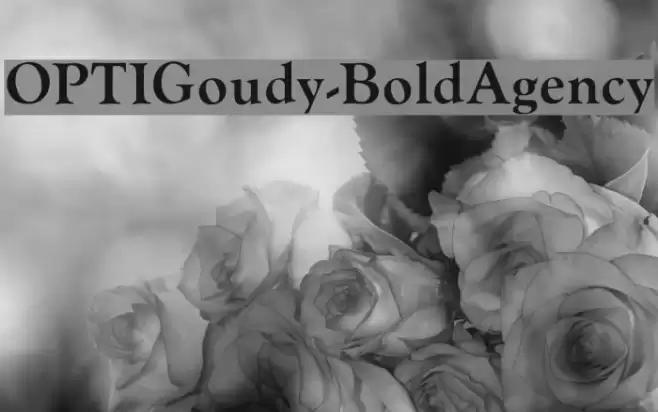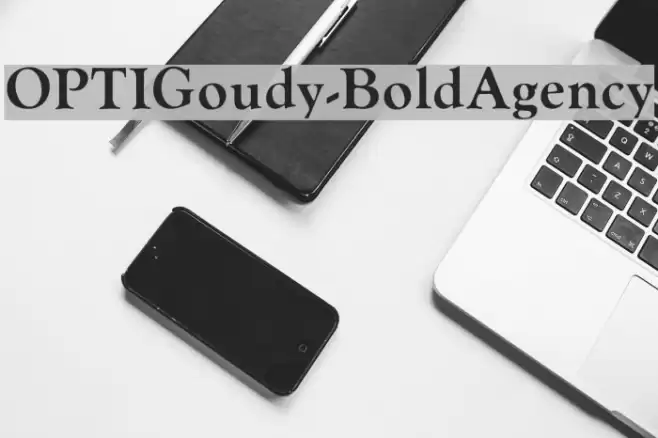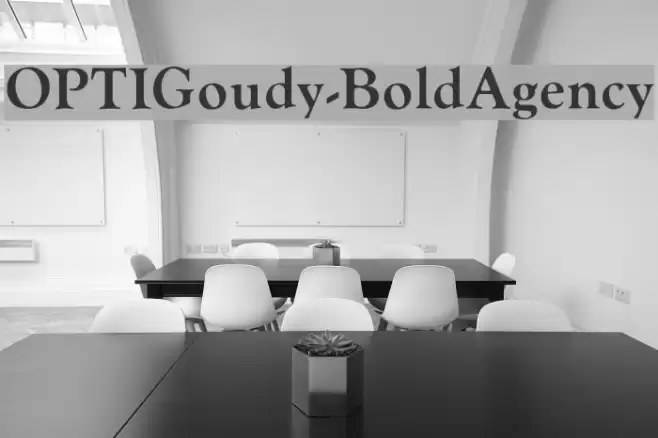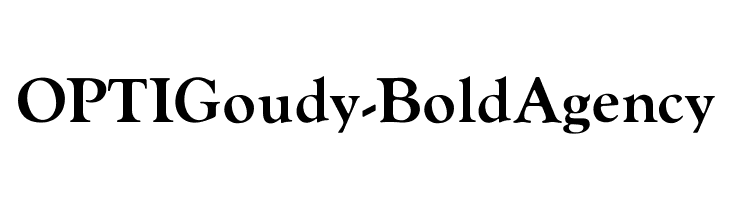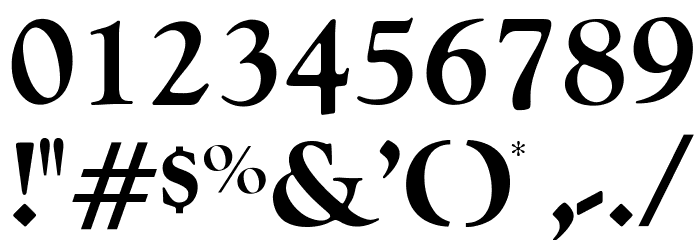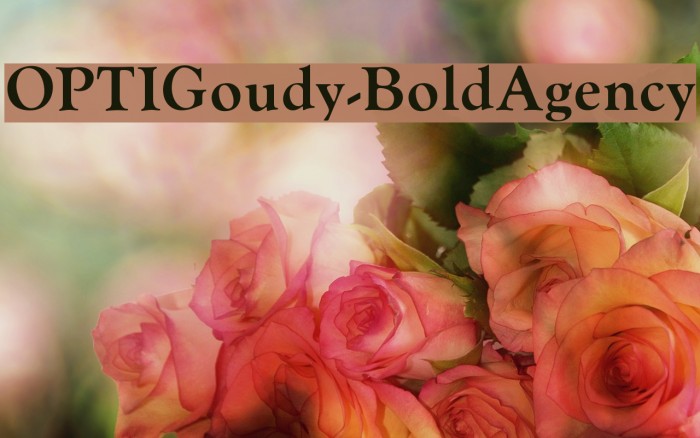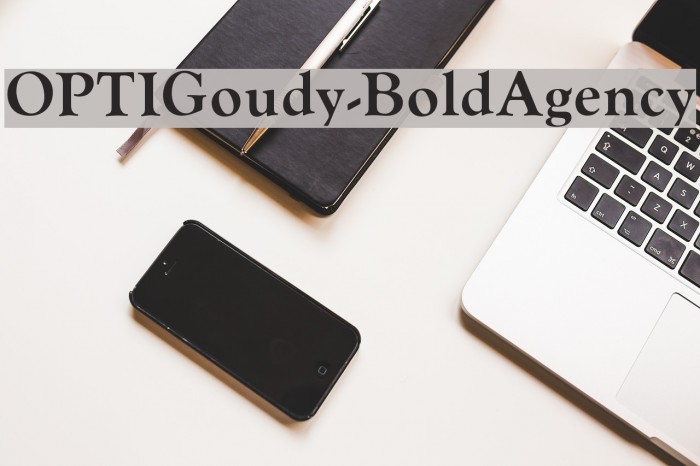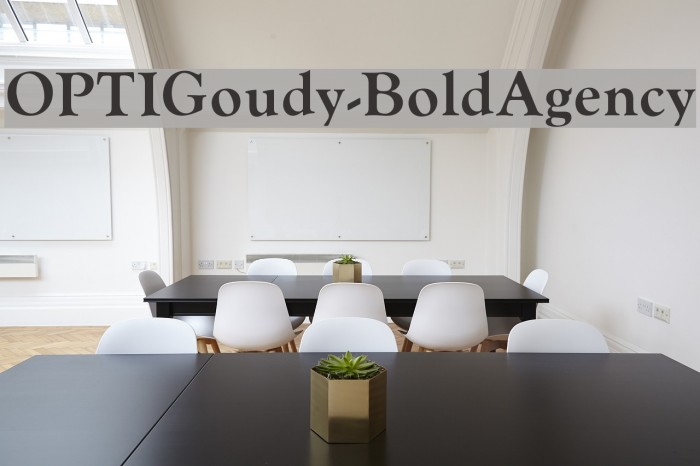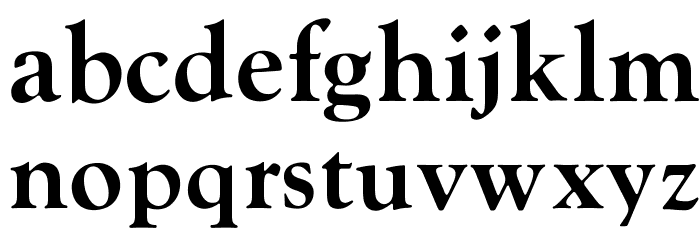
OPTIGoudy-BoldAgency Font
OPTIGoudy-BoldAgency Description
This font exhibits a classic serif style with a bold weight, characterized by its strong, thick strokes and elegant curves. The uppercase letters are well-proportioned, with a slight flair on the serifs that adds a touch of sophistication. The lowercase letters maintain a consistent style, with rounded forms and a balanced x-height. Numbers are clear and legible, making them suitable for various applications. The special characters are distinct and maintain the overall aesthetic of the font, ensuring versatility in design projects. The font's boldness and traditional serif elements make it ideal for conveying a sense of authority and timelessness.
A bold, classic serif font with elegant curves and strong strokes from Uncategorized fonts.
- Proposed Projects: Ideal for book covers, formal invitations, branding, and editorial design.
- Overall Style: Classic
- Use Case: Headlines, Logos, Editorial design